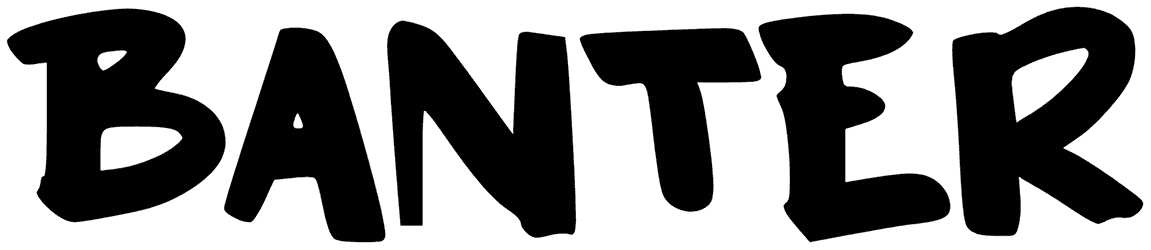
b Banter Font
Carrying a feeling of jauntiness, vivacity, and personalization makes b Banter a very good choice for critical graphic content such as illustrations, storybook covers, applications, and flyers. This script font has chunky and crooked characters, thus it can give a fresh breath to all of your creative ideas and boost their efficiency.